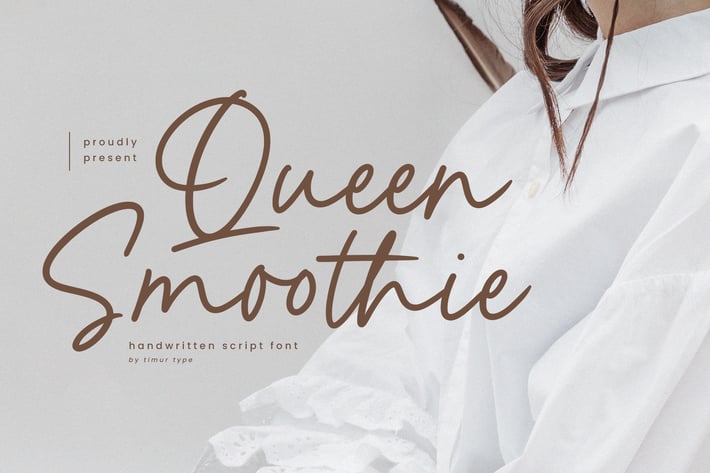
Queen Smoothie - Handwritten Script Font TT
Queen Smoothie is a Handwritten Script Font
This font resembles handwriting. With attention to detail and beautiful strokes in every line, this font adds a touch of sophistication and distinctive style to any design or text it is applied to.
The distinctive nature of small lines makes them perfect for creating attention-grabbing titles, logos, or other elements.
Queen Smoothie Font also supports multilingualism.